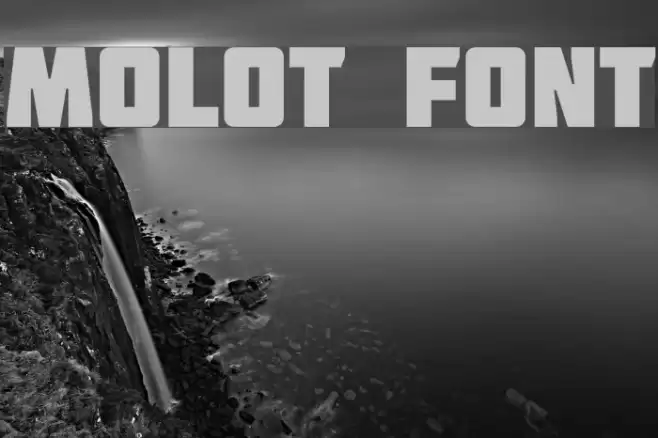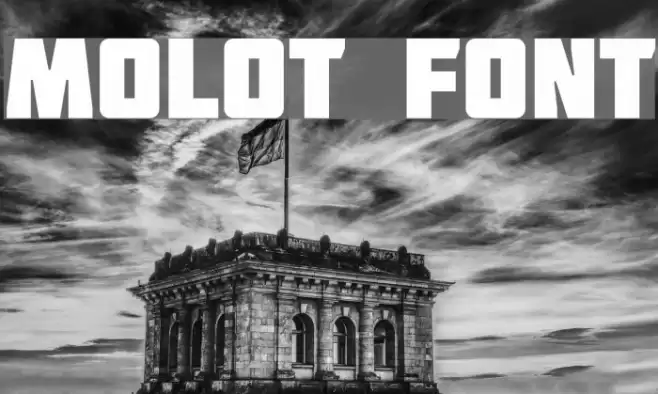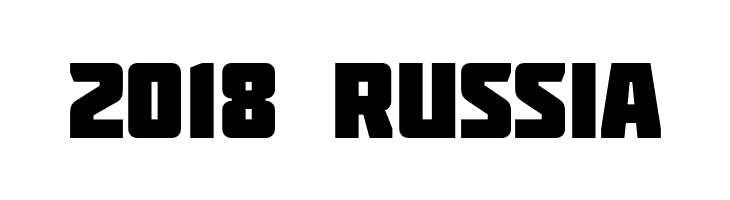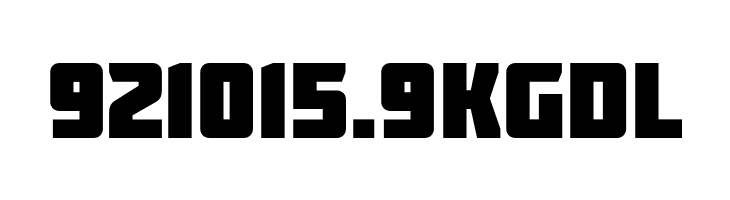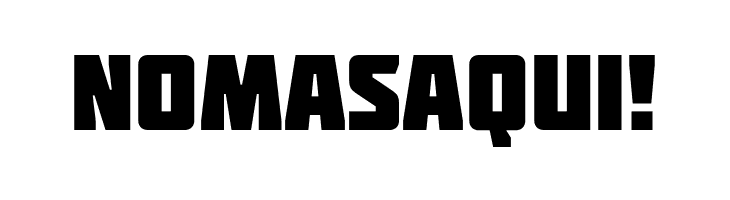
Molot Font
Molot Description
This font is a bold and impactful typeface characterized by its thick, block-like letters that convey strength and assertiveness. The uppercase and lowercase letters maintain a consistent weight, providing a uniform appearance across all characters. The numbers and special characters are equally robust, ensuring they stand out in any design. The font's geometric shapes and sharp angles contribute to its modern and industrial feel, making it ideal for projects that require a strong visual presence.
A bold, geometric typeface with a strong, industrial feel from Uncategorized fonts.
- Proposed Projects: Ideal for branding, posters, headlines, and any design requiring a bold statement.